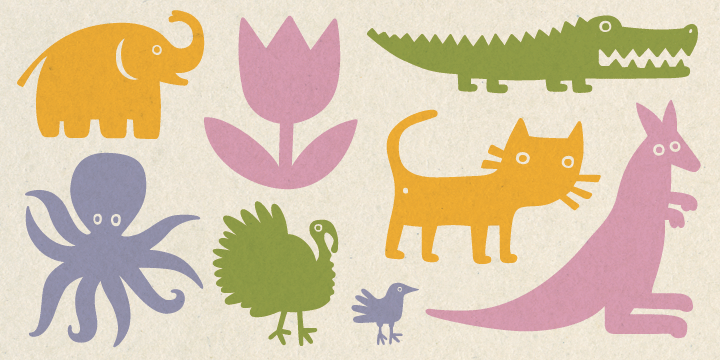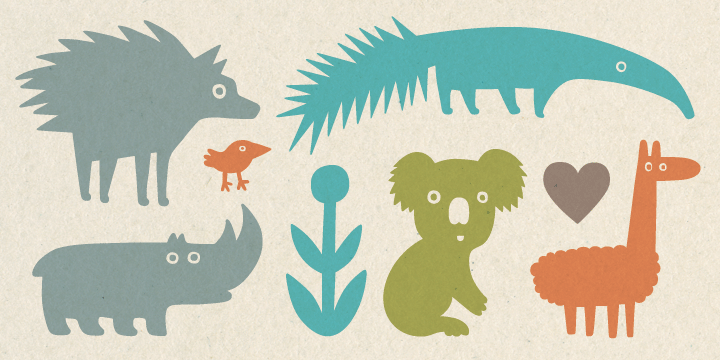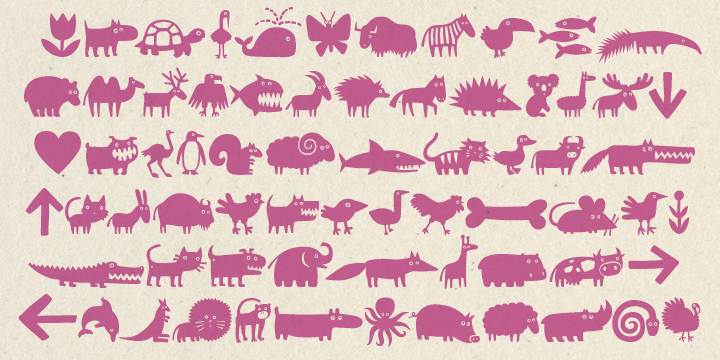
Mr Dog Dog is a dingbat font published by Hipopotam Studio.
We’re children’s book illustrators and Mr DogDog is a set of our 96 unique hand-drawn pictures (61 animals, 20 dialogue balloons and 15 other symbols). You can use it on invitations, mugs, posters, pillows, wallpapers, balloons and so much more.